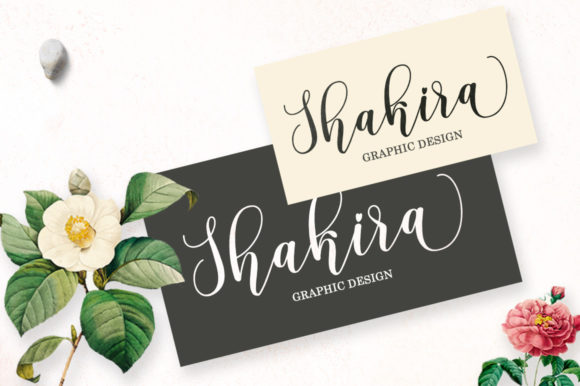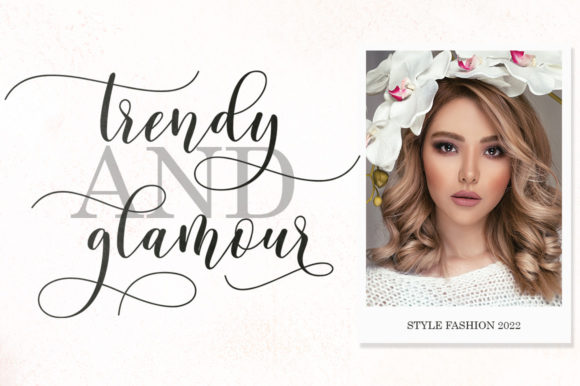
Hello Sweetheart Font
db-ku.com - Script & Handwritten -- Hello Sweetheart is an enchanting handwritten font. This versatile script font has a wide spectrum of applications ranging from greeting cards to headlines. Hello Sweetheart is PUA encoded which means you can access all of the amazing glyphs and ligatures with ease!